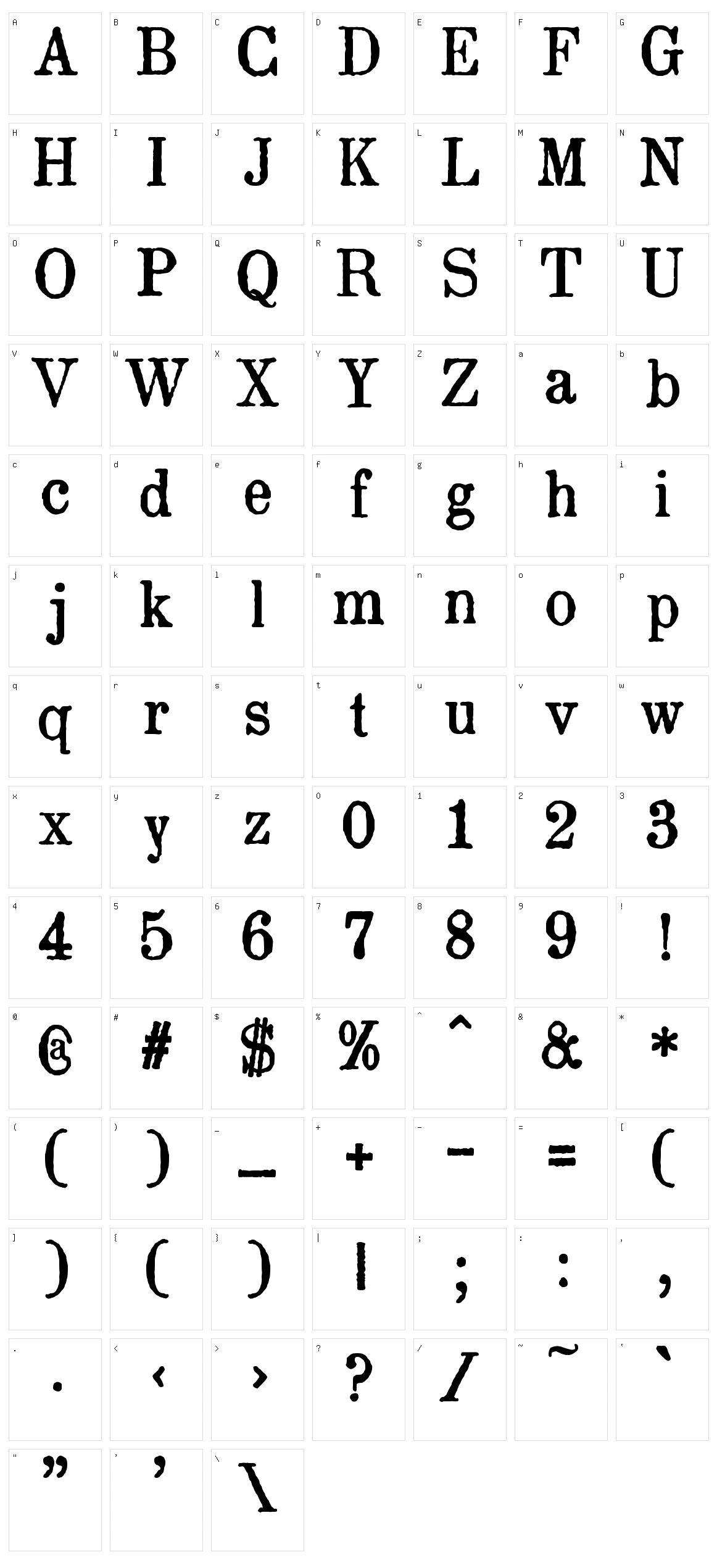
The free font zai Drukarnia Akademii Krakowskiej 1674 is carefully designed by Tomasz Skowroński, showcasing a thoughtful balance of creativity and usability and falls under the Eroded font style. When you download the ZIP file, it contains only 128.82 KB of font files, making it lightweight and quick to download. Please review the license details below to understand permitted usage and distribution rights. If license information is not available, we recommend using this font for personal projects only or contacting the author directly for commercial usage permissions.